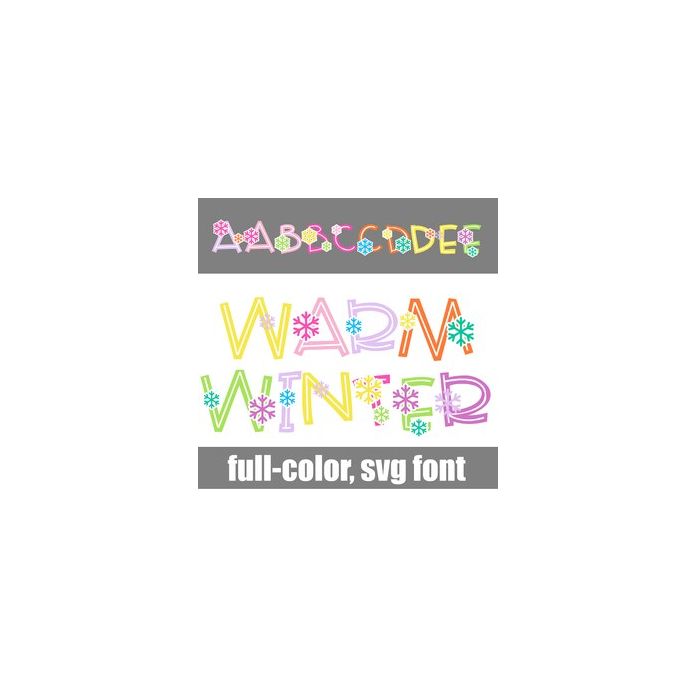
This full-color font features whimsical lettering and snowflakes in a warm, bright color palette. There is an alt case w/ additional colors you can access through your system or Silhouette's glyph map.